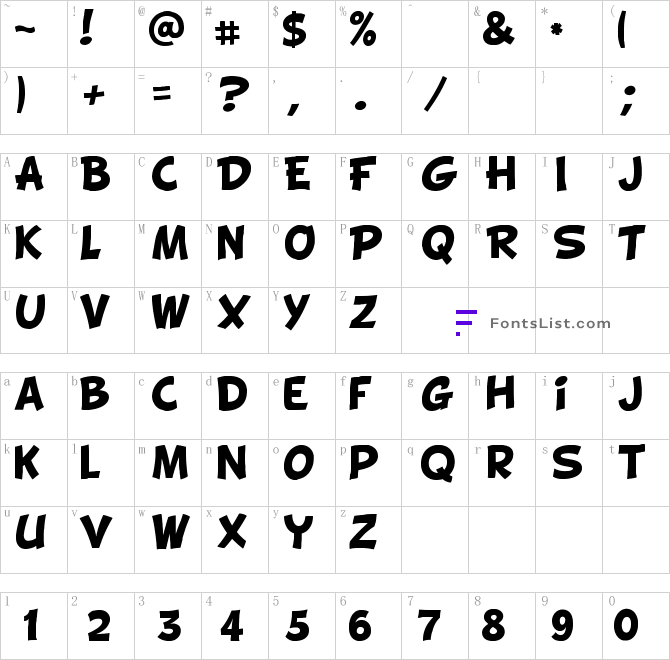
- Font Name:BD Cartoon Shout
BD-Cartoon-Shout.ttf is a very beautiful artistic font, BD-Cartoon-Shout.ttf is widely used in the design and printing of various books and pictures,BD-Cartoon-Shout.ttf has a strong visual impact,BD-Cartoon-Shout.ttf is a commonly used font in newspapers, magazines and books, and is used in posters, e-commerce Poster design, store design, logo design, font design and other fields.BD-Cartoon-Shout.